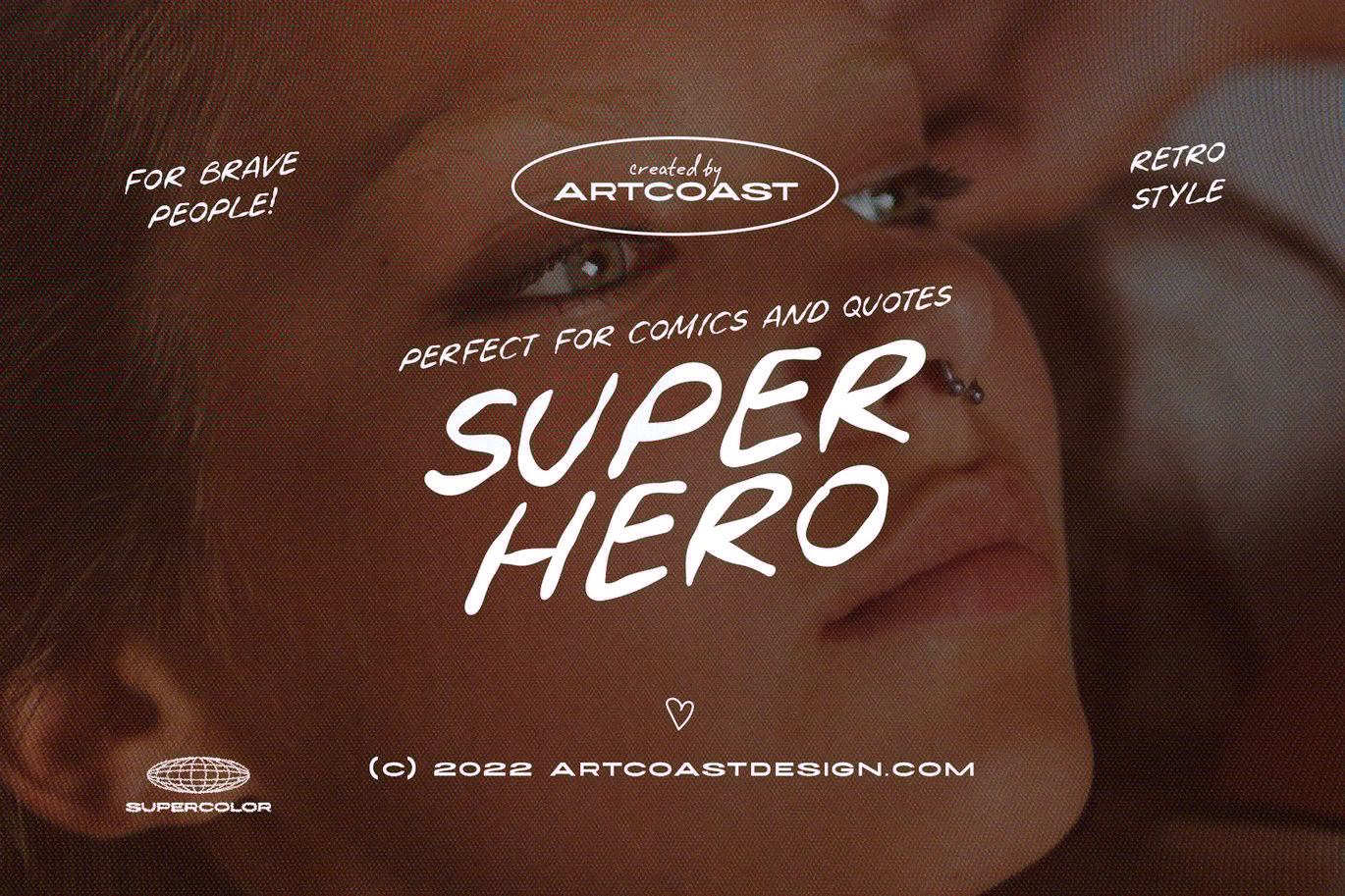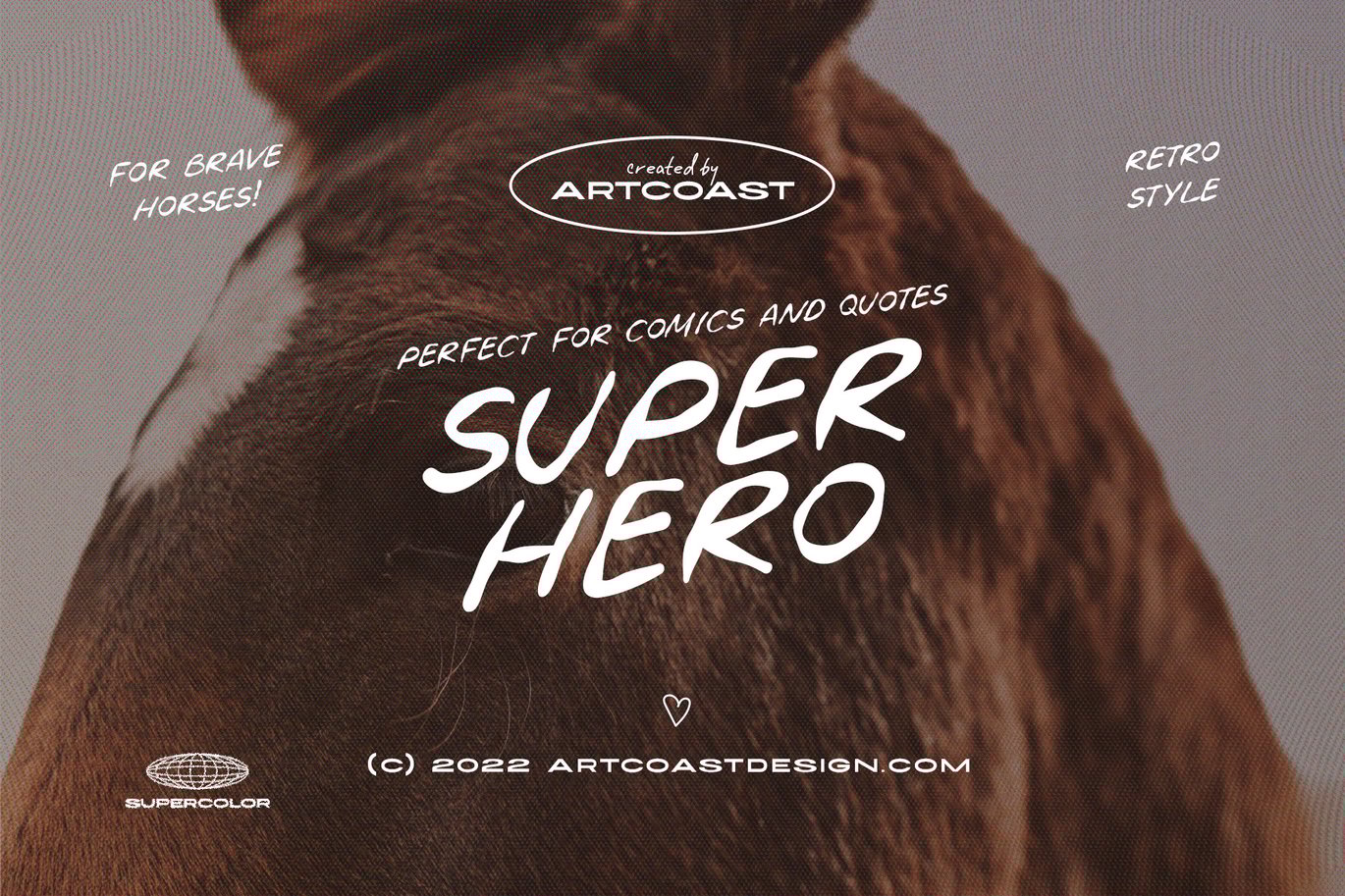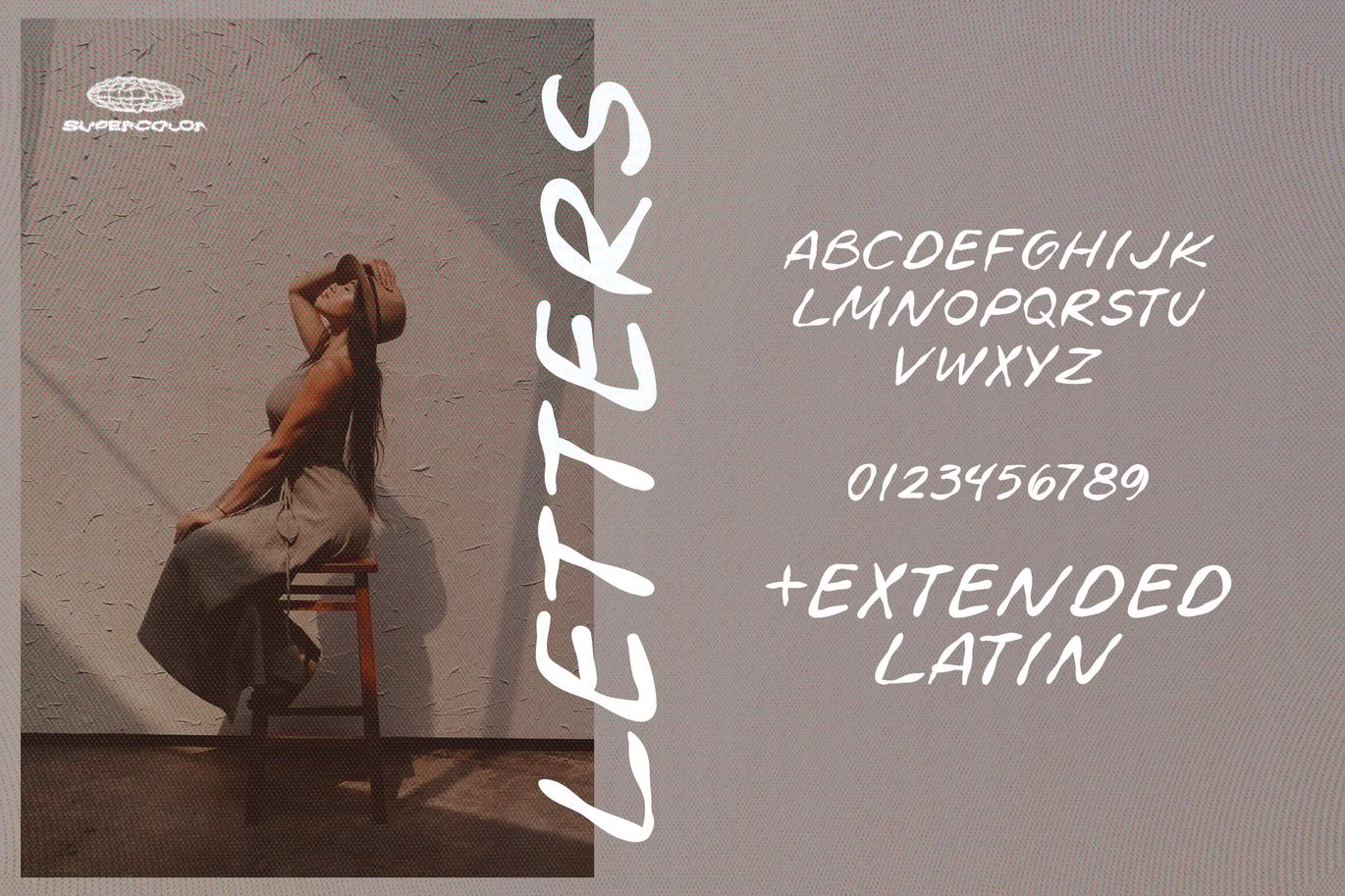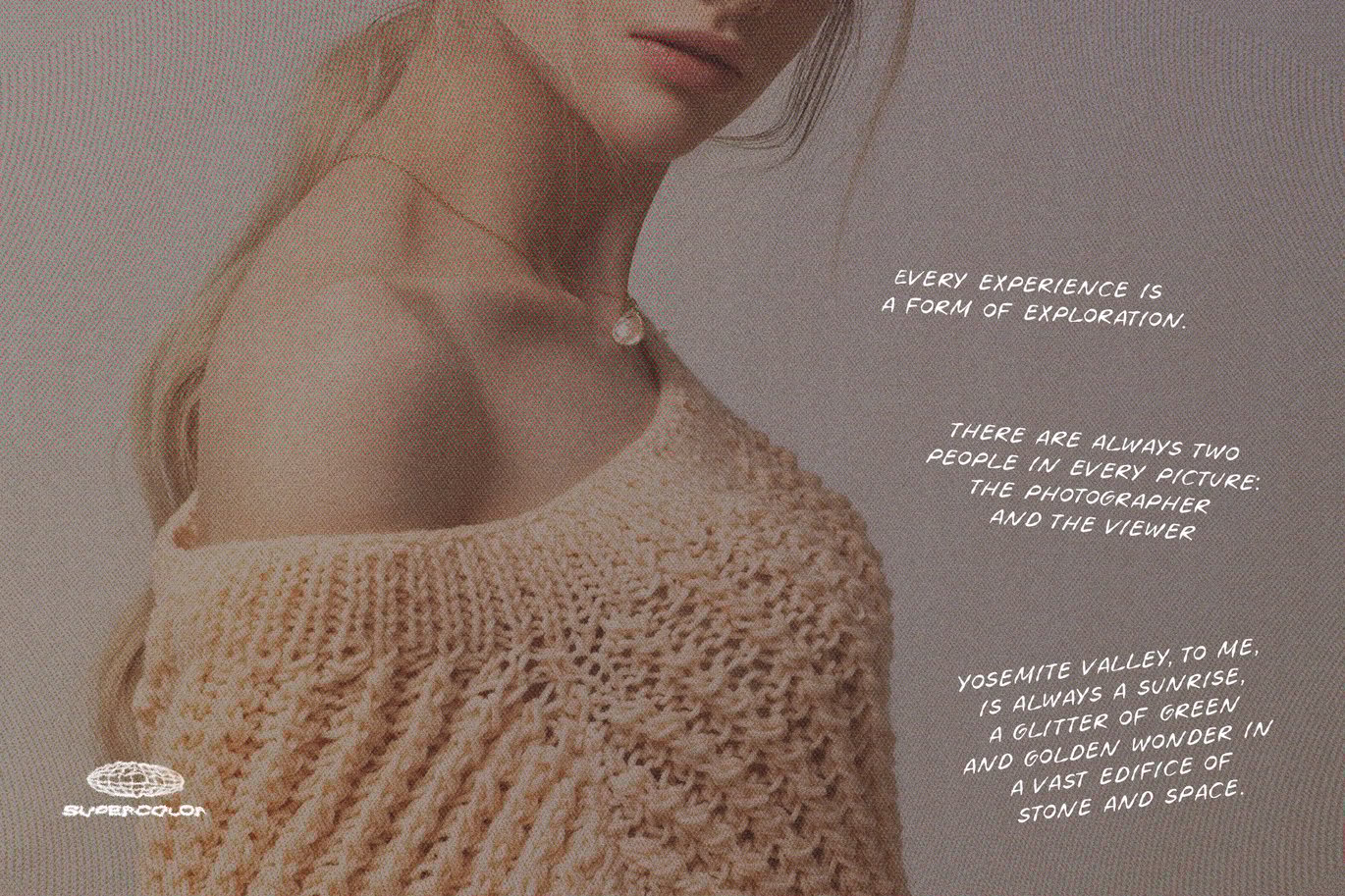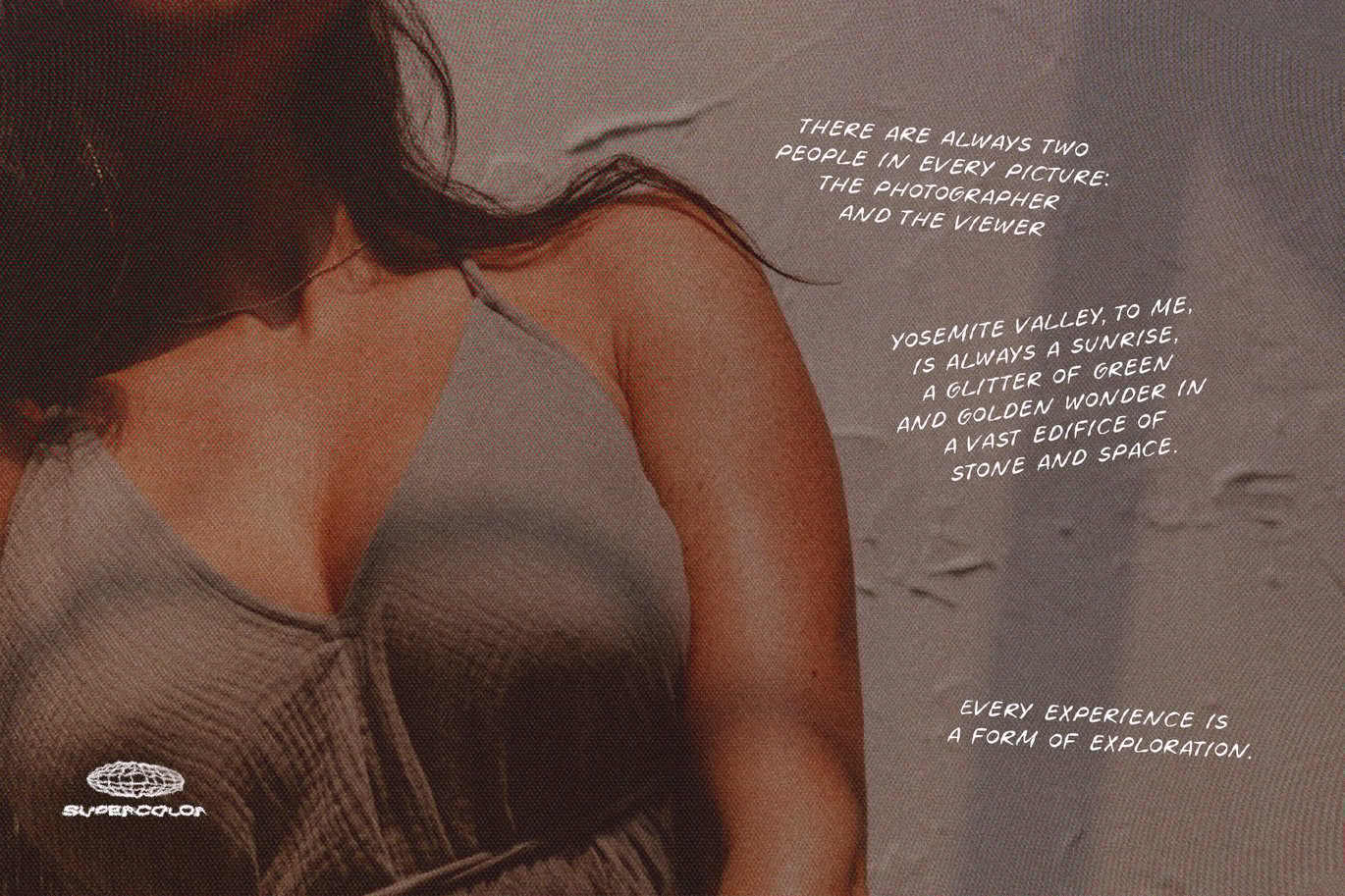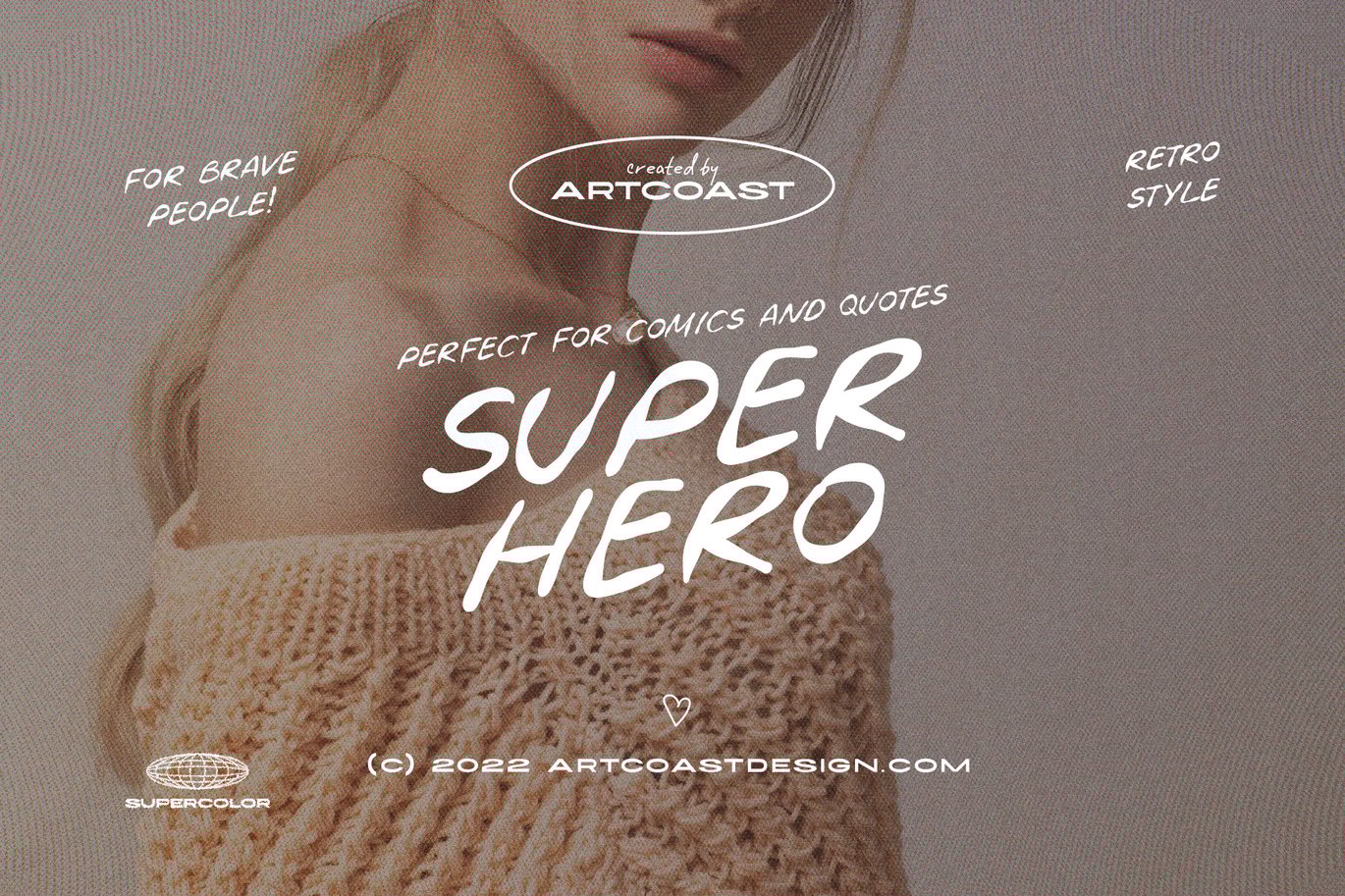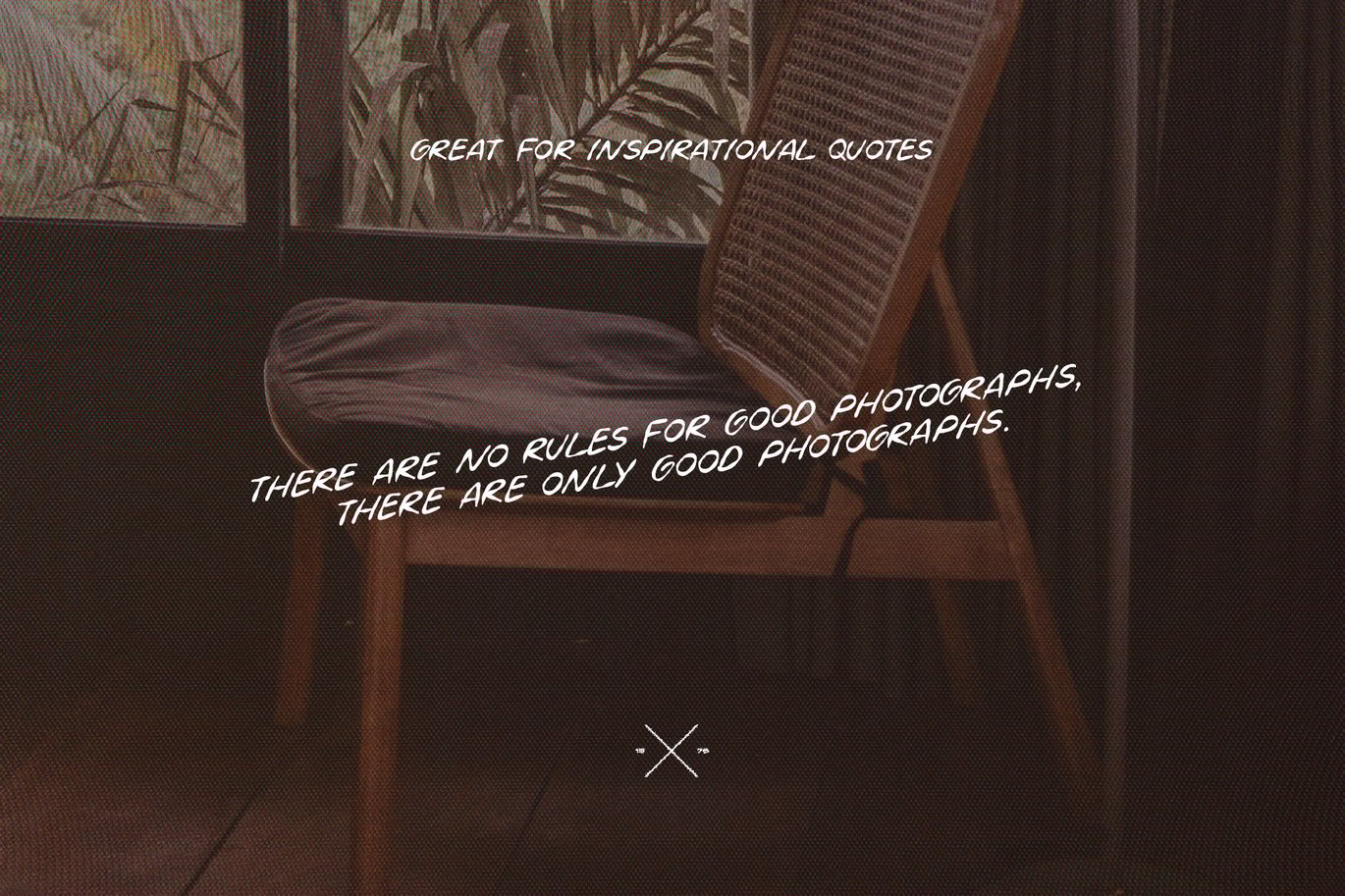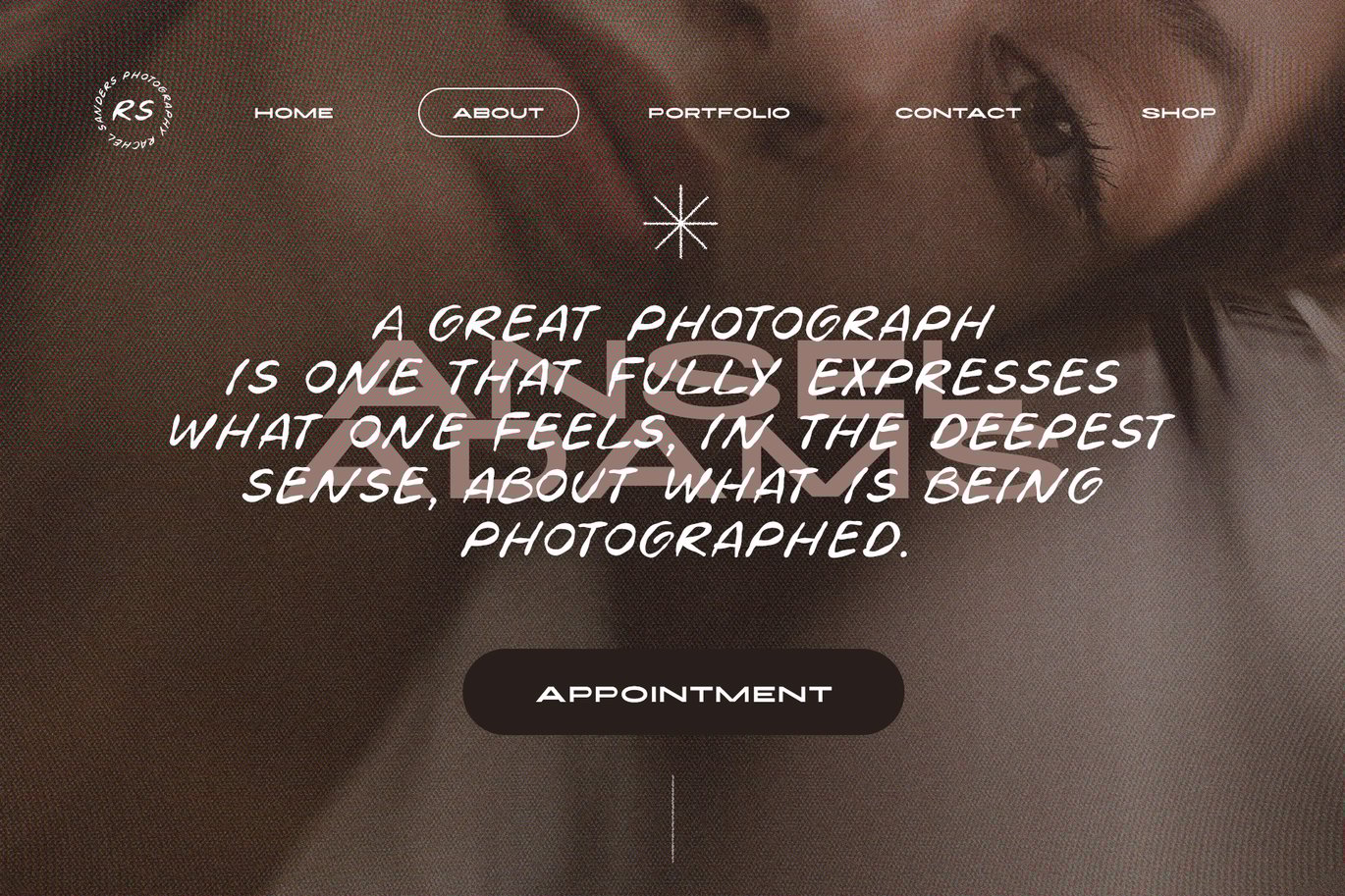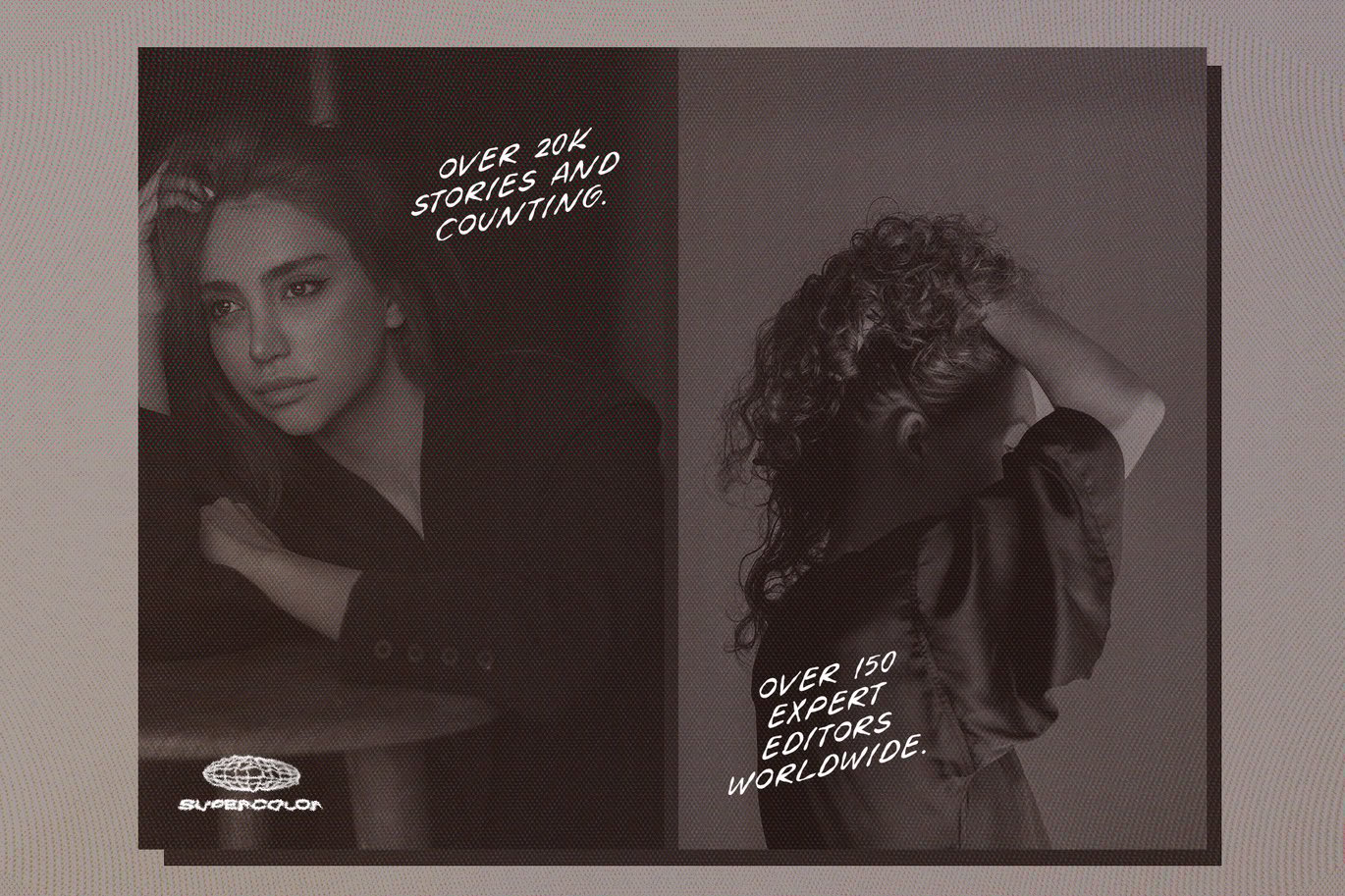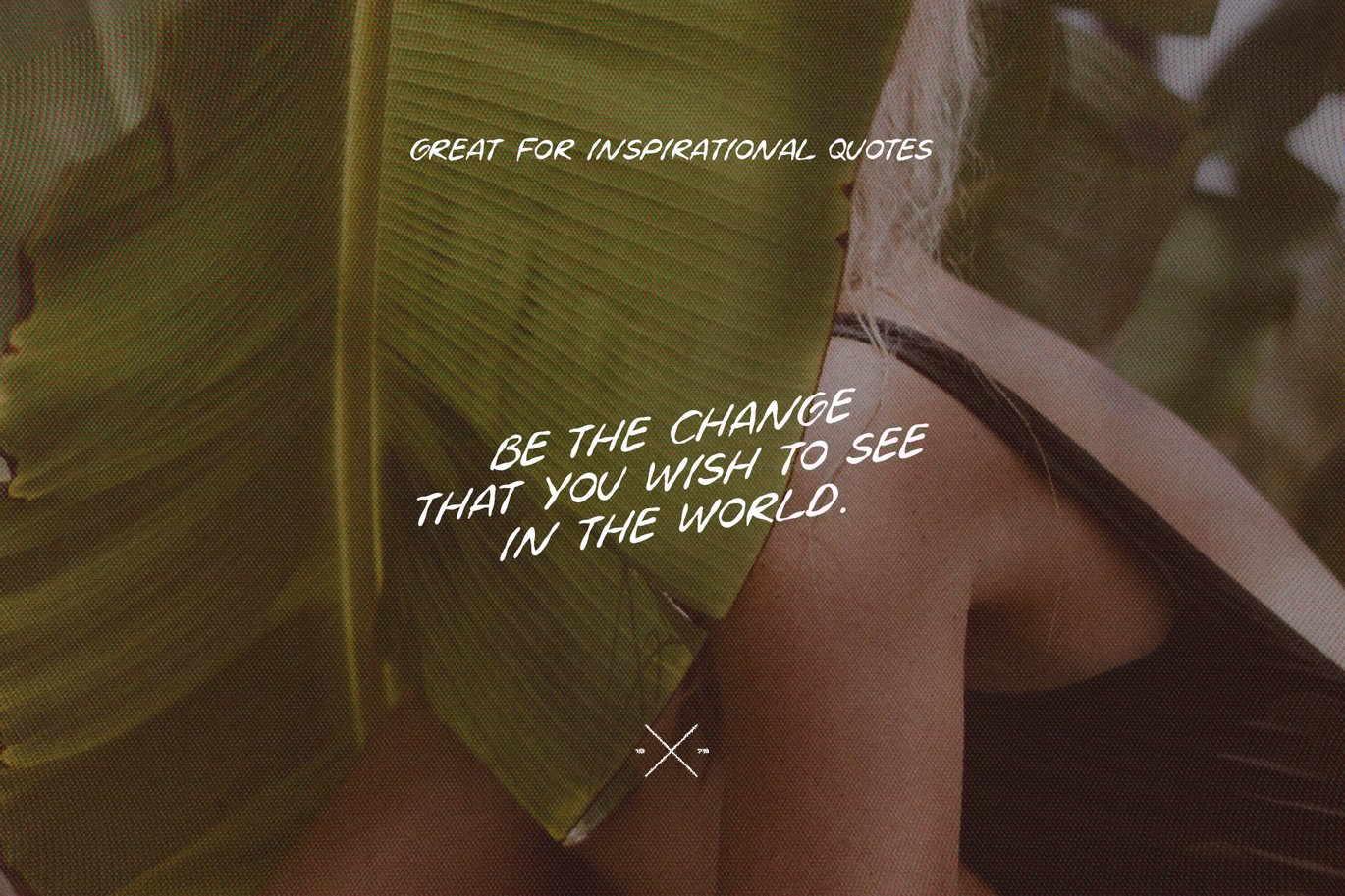
Superhero – Handwriting Font
SA Superhero is inspired by old comics written by great writers like Stan Lee. It is perfect for anyone who loves the classics or wants to give their project a vintage feel. This font is easy to read and has a fun, stylish look. We hope you enjoy using this font!
SA Superhero is perfect for branding projects, logo, wedding invitations, social media posts, advertisements, product packaging, product designs, label, photography, watermark, stationery and projects that need handwriting signatures